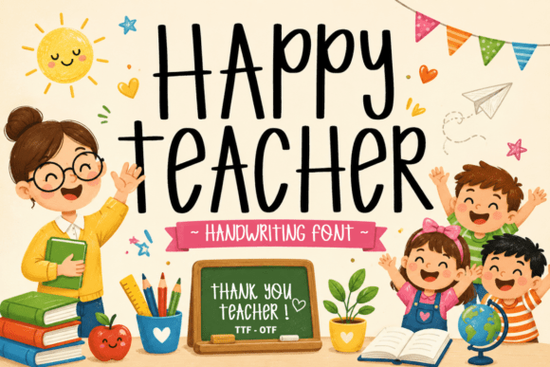
If you’re creating classroom resources, planner stickers, or teacher appreciation gifts, Happy Teacher brings a warm, handwritten touch that feels instantly familiar. This tall, slim script font mimics the neat, approachable writing of an elementary school teacher, making every project feel a little more personal and inviting.
Why does this font work so well for school projects?
The charm of Happy Teacher lies in its clean and highly legible letterforms. Each character is carefully shaped so that even young readers can recognize letters quickly perfect for flashcards, name tags, and classroom labels. The playful yet tidy style avoids overly elaborate swashes, keeping the focus on readability without losing personality. Because the font feels like real handwriting, it instantly softens the tone of educational handouts, newsletters, and digital slides.
How does Happy Teacher handle on a Cricut or Silhouette?
Many script fonts become a headache when you send them to a cutting machine, with tiny details that tear or don’t weed cleanly. Happy Teacher is different. Its paths are smooth and optimized, which means:
- Fewer unnecessary nodes for a faster cut
- Thin upward strokes that stay attached to the rest of the letter
- Even small text cuts and weeds without frustration
You don’t need to spend time tweaking the file just size it, cut it, and weed it. That reliability makes it a favorite for people who run craft businesses and need consistent results on cardstock, vinyl, or iron‑on.
What can you create with this font?
Because Happy Teacher walks the line between casual and orderly, it fits a wide range of teacher‑themed and family‑oriented projects. Use it for:
- Back‑to‑school classroom decor and bulletin board letters
- Personalized teacher tote bags, t‑shirts, and sublimation mugs
- Planner stickers, reward charts, and chore cards
- Birthday banners, lunchbox notes, and scrapbook titles
Print-on-demand sellers often reach for this style when they build collections aimed at parents and educators it adds a handmade feel that customers genuinely connect with.
What other script fonts pair well with Happy Teacher?
Mixing a few complementary scripts can give your designs more depth while keeping a friendly, approachable mood. Here are five other script fonts from Creative Fabrica that bring their own personality to the table.
If you want a soft, flowing look for quotes or invitations, Valeysoul offers delicate loops that still cut neatly. You can see how its style works on real projects in our detailed look at Valeysoul.
For a playful bounce that suits birthday cards or children’s activity sheets, Little Starli has a slightly more animated rhythm. Our review of Little Starli covers the ligatures and alternates that make it so cheerful.
When you need a natural signature style for thank‑you notes or coaching forms, Simple Signature is an elegant, no‑fuss option. Check the Simple Signature page for pairing ideas.
Projects that call for a bold, affectionate feel like family reunion shirts or Valentine’s classroom crafts benefit from the warm weight of Biglove. Take a peek at the Biglove font article to compare its thickness with Happy Teacher.
And if you’re designing for a sporty parent group or a school spirit event, Volley adds a scrappy, energetic handwritten feel that stands out on team banners. The Volley script review shows how it handles both big and small size cuts.
Quick tip: When you pair Happy Teacher with any of these scripts, keep the line spacing generous so the tall, slim letters don’t feel crowded. A simple sans‑serif for smaller supporting text gives the whole design a clean, balanced finish. Try a test cut on scrap vinyl before running a full sheet you’ll save time and avoid wasted material.